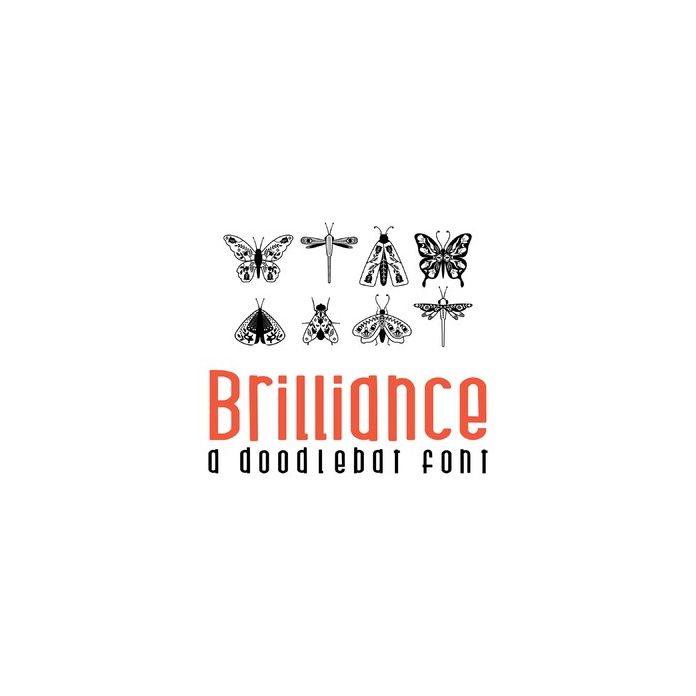
This fun doodlebat font features 26 decorative butterflies, dragonflies and inspiration. Perfect for cards, gifts, decor, crafts, scrap book pages, planner stickers and more!